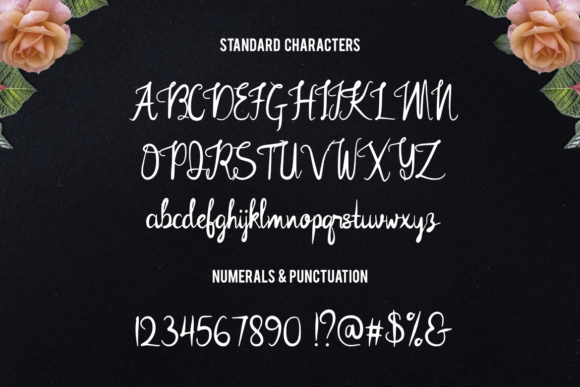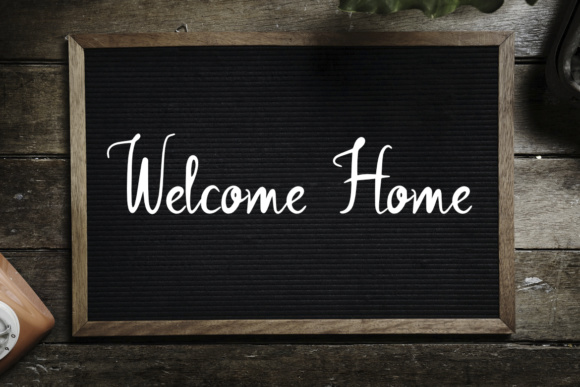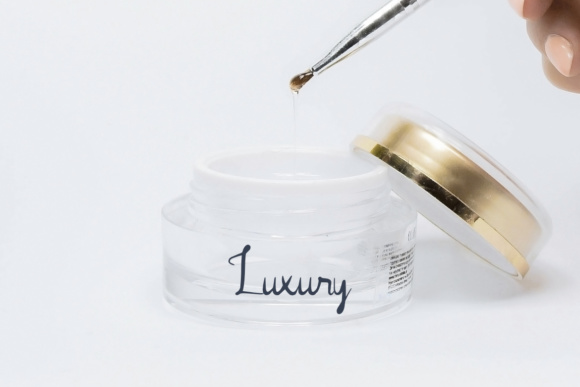
Introduction to Rose Mellow Font
As a designer, you know the thrill of that perfect moment when your creative vision comes to life on the screen. It’s the spark that ignites your imagination, the rush of excitement that makes all the hard work worth it. For many of us, that moment is all about finding the right font to set the tone for our project. And that’s exactly what we’re going to explore today – the beautiful, handwritten display script that will make all your designs incredibly friendly and warm: the Rose Mellow Font.
This high-quality font is a design resource that stands out for its organic and natural looking script option, making it perfect for simple designs that need a touch of warmth and personality. Whether you’re working on a creative project or just need a free download to add some flair to your next design, the Rose Mellow Font is an excellent choice.
Key Features of Rose Mellow Font
- Unique characteristics include its delicate, cursive script and subtle floral motifs, adding a touch of sophistication to any design.
- Suitable for use in a variety of design contexts, including logos, branding materials, and typography-based art pieces.
- Can be easily scaled and manipulated to fit the specific needs of your creative project, making it a versatile design resource.
Honest Review: Rose Mellow Font
As a designer, I’m always on the lookout for high-quality design resources to elevate my creative projects. The Rose Mellow Font caught my attention, and I’m excited to share my honest review with you.
What works well: ✨ The font is incredibly versatile and can be used for a wide range of projects, from branding and advertising to editorial and digital content. The smooth, elegant lines and subtle texture give it a sophisticated feel that’s perfect for creating a premium look.
Any limitations: ⚠️ While the font is well-designed, it may not be suitable for projects that require a bold or edgy look. Additionally, the font may not be as effective in smaller text sizes.
Overall, I’m impressed with the Rose Mellow Font and would definitely recommend it to designers looking for a high-quality, versatile font for their creative projects.
Tips for Getting the Most Out of Rose Mellow Font
To get the most out of the Rose Mellow Font, use it in combination with other design elements, such as images and graphics. You can also experiment with different font sizes and styles to create a unique look.
The Rose Mellow Font is perfect for a variety of creative projects, including wedding invitations, baby shower invitations, and social media graphics. It’s also great for creating logos, business cards, and more.